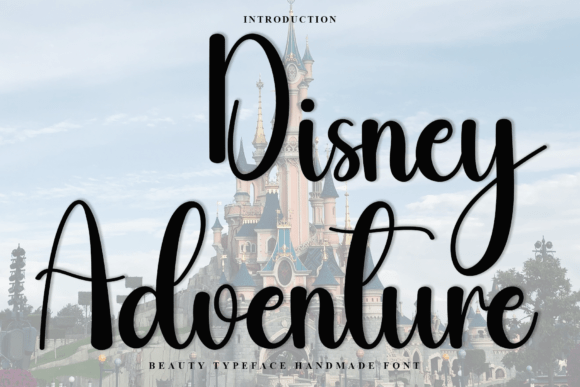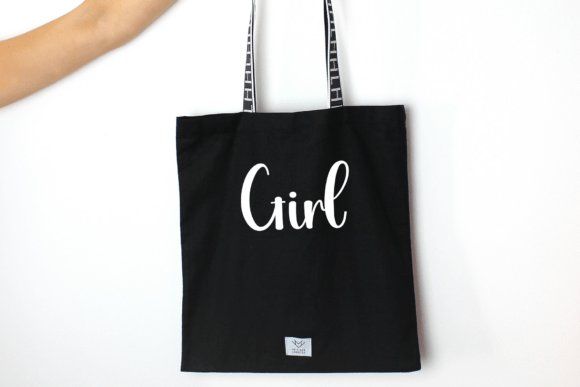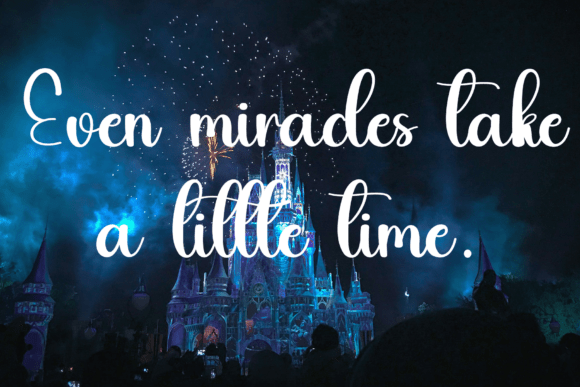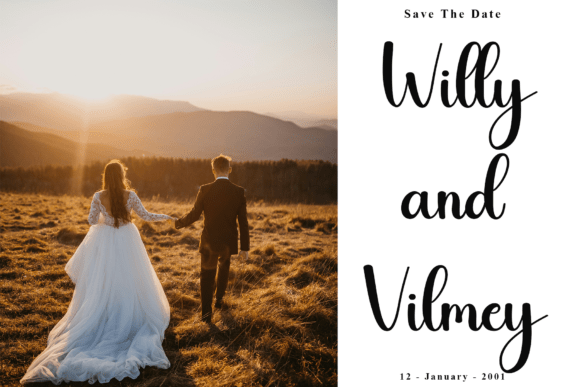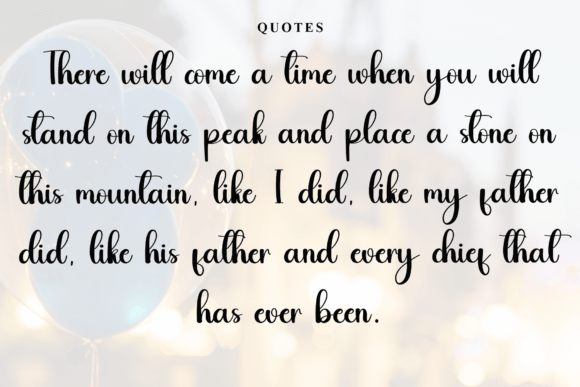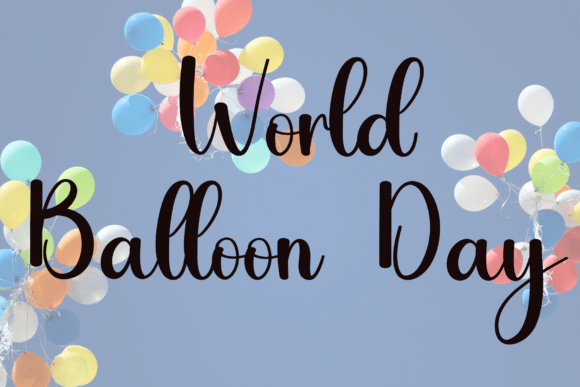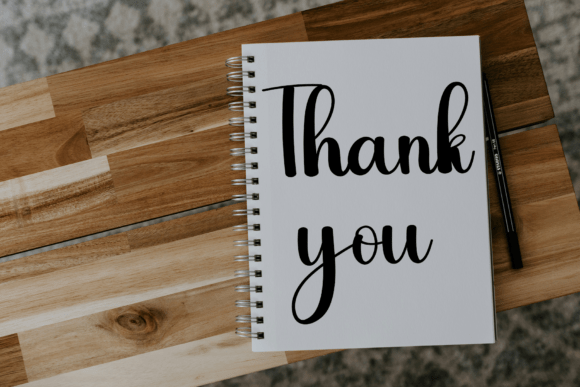
The Magic of Disney Adventure Font
As designers, we’ve all been there – staring at a blank canvas, waiting for the perfect spark to ignite our creativity. It’s a moment of pure inspiration, where the right font can transport us to a world of endless possibilities. For me, it was the moment I discovered the Disney Adventure Font – a stylish handwritten script font that captured the essence of elegance and charm.
This beautiful font is more than just a design tool; it’s a way to add a personal and sophisticated touch to any project. Whether you’re crafting invitations, logos, or branding materials, Disney Adventure Font brings warmth and creativity to your work. Its delicate strokes make it the perfect choice for designers who want to convey a sense of refinement and whimsy.
Disney Adventure Font Key Features
- Unique Characteristics: This font features a bold, adventurous design with intricate details and ornaments, making it ideal for use in theme park attractions, children’s books, and other projects that require a sense of excitement and wonder.
Disney Adventure Font Review
Overall, I think the Disney Adventure Font has a lot of charm to it ✨. The font is playful and whimsical, with a touch of classic Disney magic. It’s perfect for projects that need a fun, adventurous vibe. The font also includes a wide range of characters and symbols, making it a great choice for designers who want to add a touch of Disney to their work.
One of the things I love about this font is its versatility ✨. It can be used for a wide range of projects, from logos to marketing materials to children’s books. The font is also highly customizable, making it easy to adjust to fit your specific design needs.
- ⚠️ The font can be a bit overused, especially in projects that are too on-the-nose with the Disney theme. This can make it feel a bit cliché.
- ⚠️ The font may not be the best choice for projects that require a more sophisticated or elegant look.
Overall, I think the Disney Adventure Font is a great choice for designers who want to add a touch of fun and whimsy to their projects. While it may have some limitations, it’s a solid choice for projects that need a playful, adventurous vibe.
Tips for Getting the Most Out of the Disney Adventure Font
To get the most out of the Disney Adventure Font, consider the following tips:
- Use the font in conjunction with bold or italic text for added emphasis.
- Experiment with different font sizes to create visual interest.
- Combine the font with other Disney-themed elements, such as images or graphics.
The Disney Adventure Font is ideal for:
- Disney-themed party invitations or decorations.
- Children’s book covers